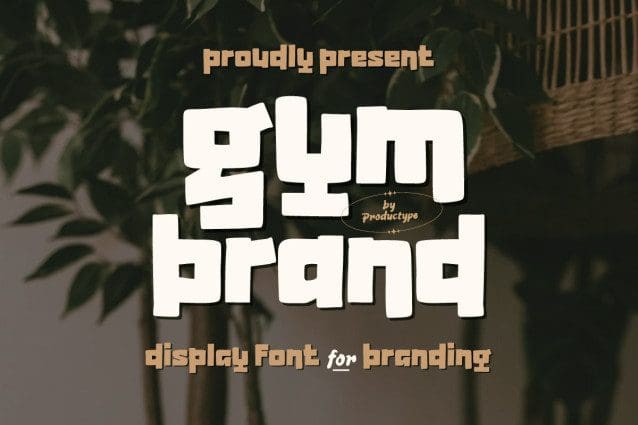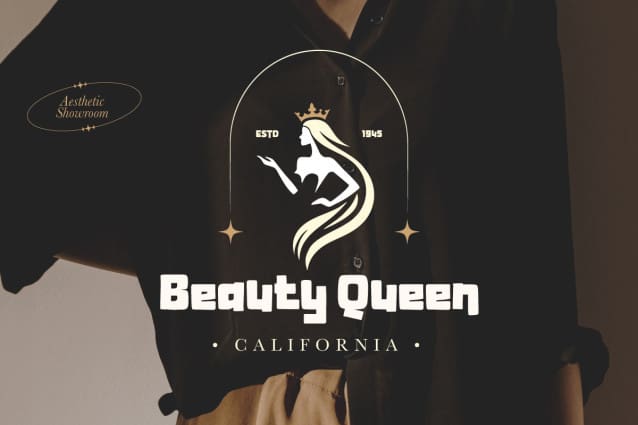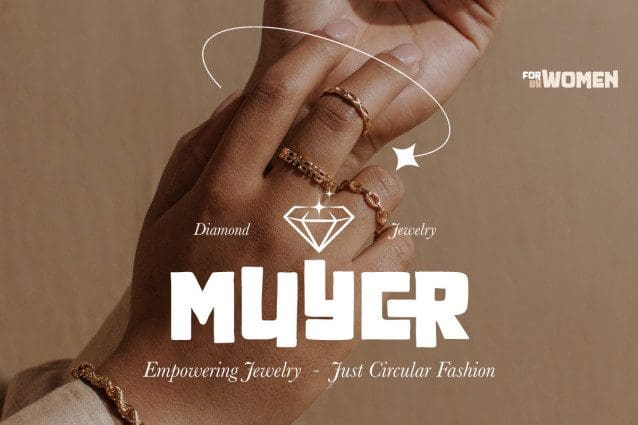
Gymbrand Display Font
Gymbrand Display Font, a striking display font designed to bring power and professionalism to your branding projects. With its clean lines and bold presence, Gymbrand exudes confidence and modernity, making it the perfect choice for businesses and brands that want to stand out.